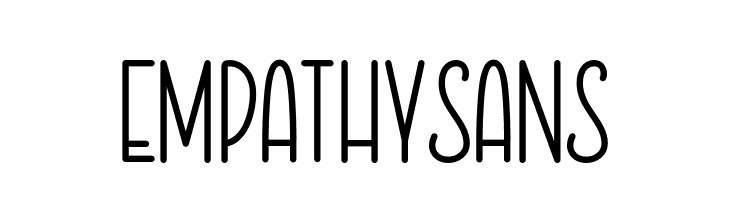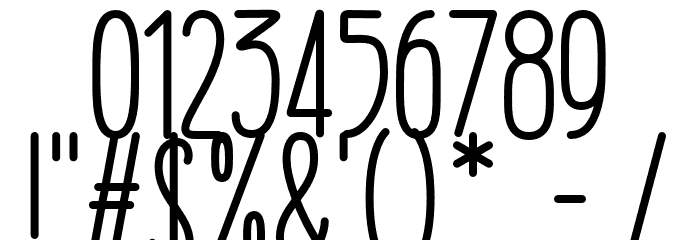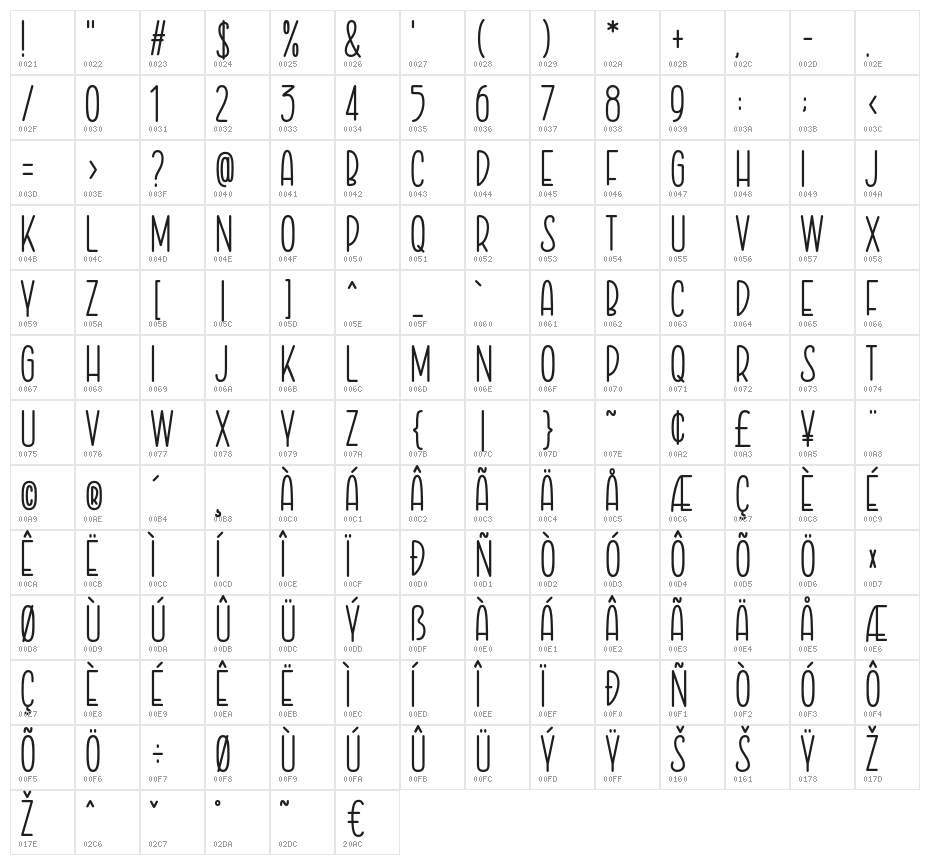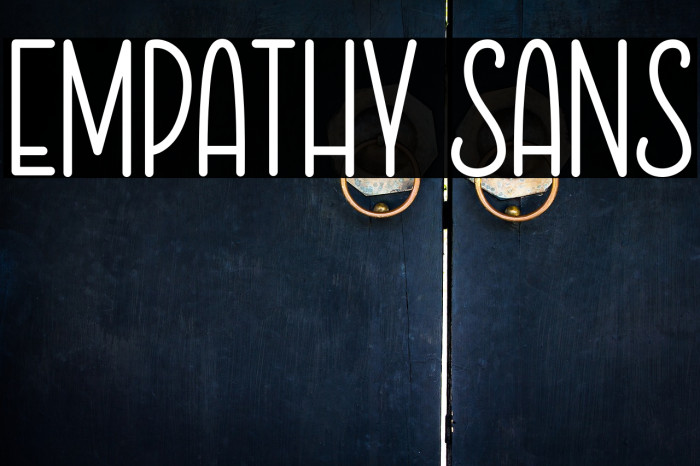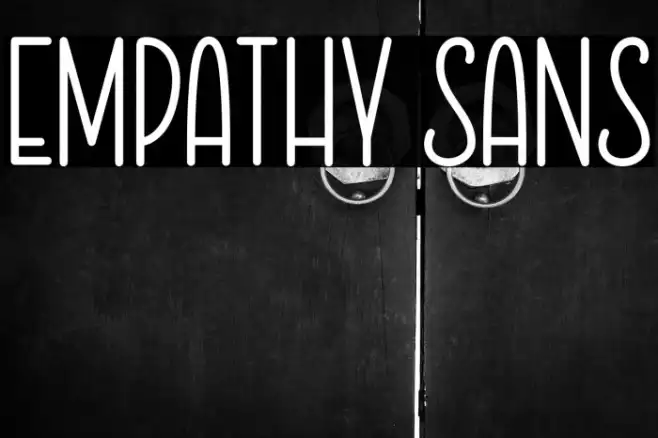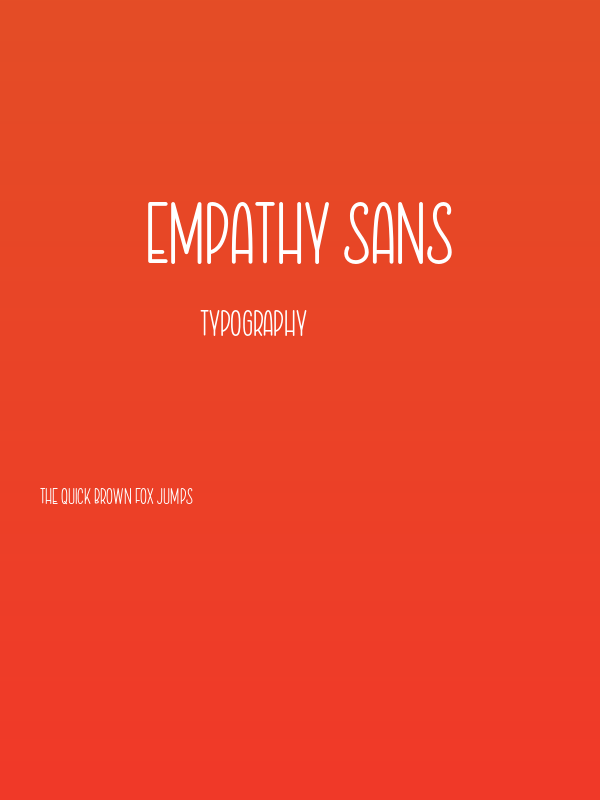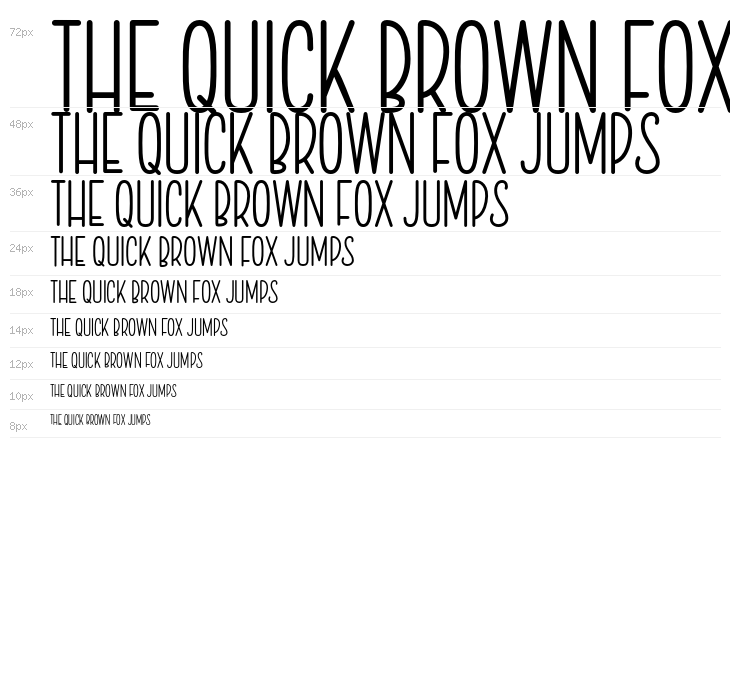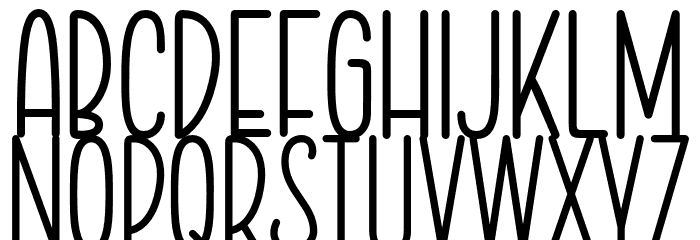
Empathy Sans Font
Empathy Sans Description
This font features a tall and narrow design with clean, straight lines and rounded edges, giving it a modern and approachable appearance. The characters are evenly spaced, contributing to a balanced and harmonious look. The uppercase and lowercase letters maintain a consistent style, with a slight variation in height and width that adds a touch of elegance. The numerals are clear and legible, matching the overall aesthetic. Special characters are well-integrated, maintaining the font's cohesive style. This font's simplicity and clarity make it versatile for various design applications.
| Proposed Projects | Ideal for branding, advertising, posters, and digital media where a modern and approachable look is desired. |